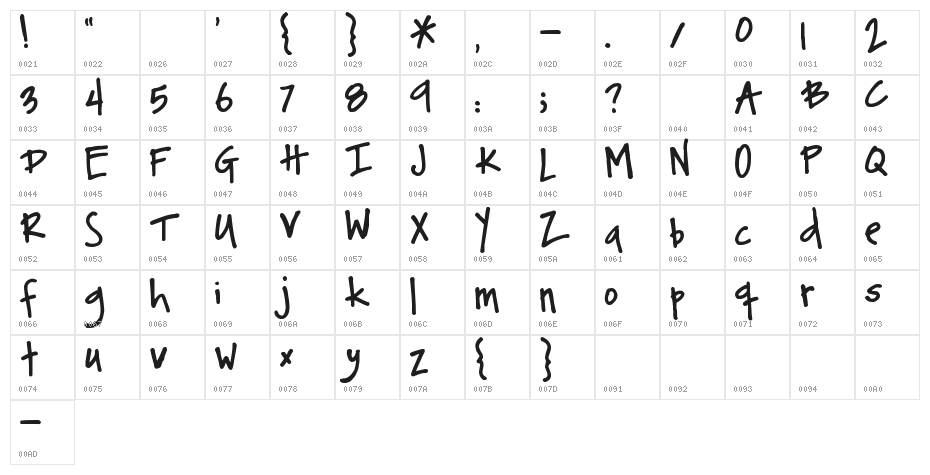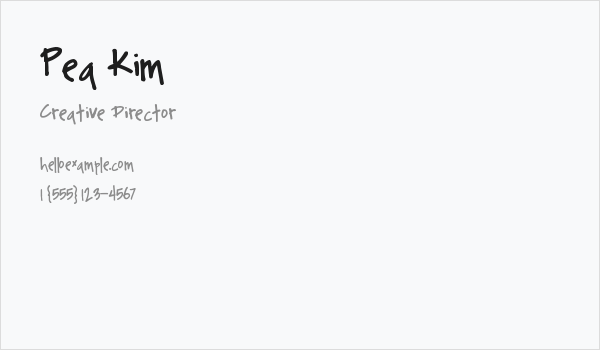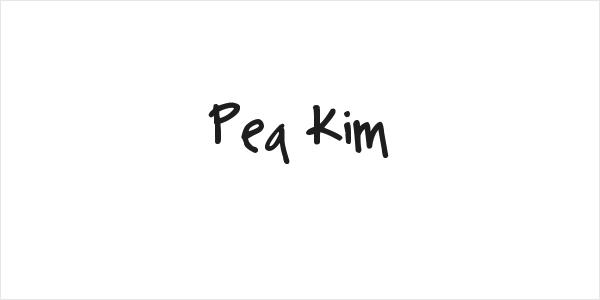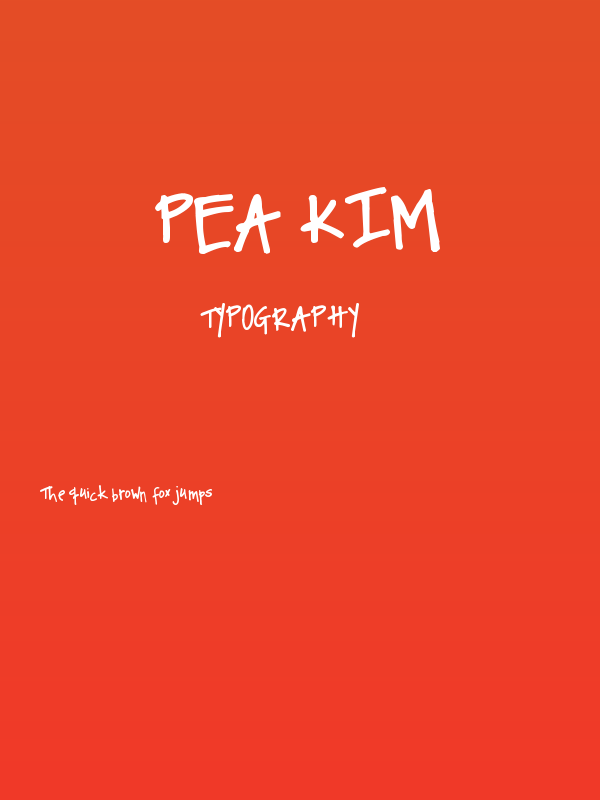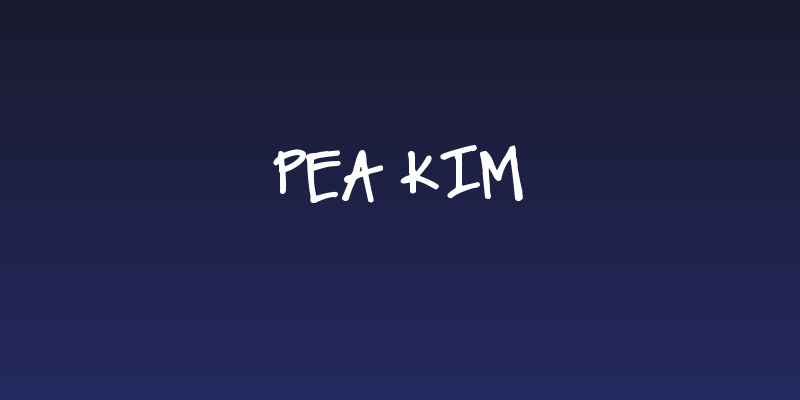
Pea Kim Font
Pea Kim Description
This font features a playful and casual handwritten style, characterized by its uneven strokes and informal appearance. The letters are slightly slanted, giving them a dynamic and lively feel. The uppercase and lowercase letters maintain a consistent style, with rounded edges and a slightly irregular baseline, enhancing the handwritten aesthetic. The numbers and special characters follow the same playful design, making the font versatile for various creative applications. Its informal nature makes it suitable for projects that require a personal touch or a relaxed vibe.
| Proposed Projects | Ideal for greeting cards, personal blogs, children's books, and informal branding. |